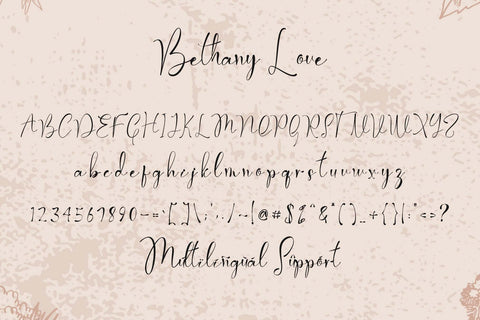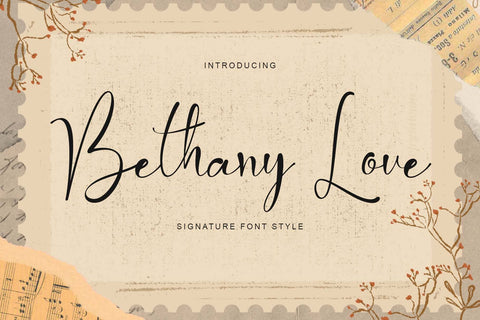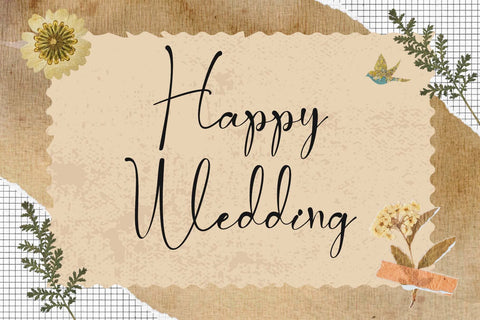
Bethany Love
"Bethany Love" is an elegant and beautiful signature font. This font is equipped with uppercase, lowercase, numerals, punctuation, and multilingual support. Very suitable for weddings, engagements, invitations, valentines, spring, summer, elegant certificates, and others.